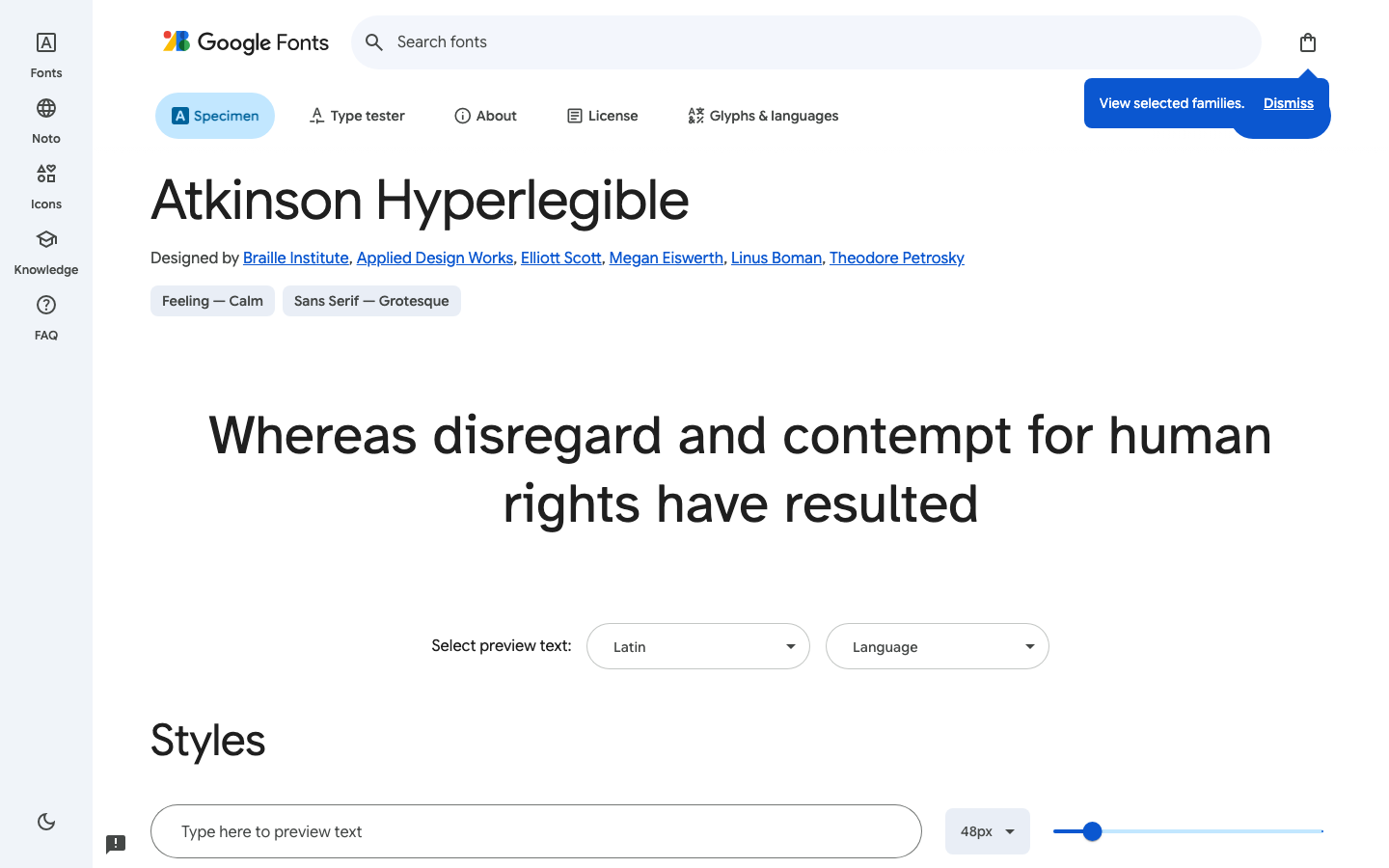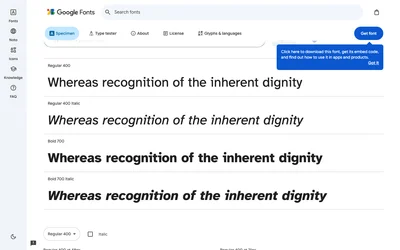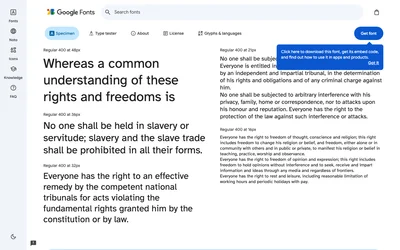
Atkinson Hyperlegible vs Figtree
Atkinson Hyperlegible and Figtree are both sans-serif typefaces sharing a modern foundation. Where Atkinson Hyperlegible leans readable, Figtree brings geometric, warm. Compare which suits your Ui project.
Recommended: Atkinson Hyperlegible
- readable design character
- Suited for Accessibility and Public
Consider: Figtree
- geometric, warm design character
- Suited for Branding and Web